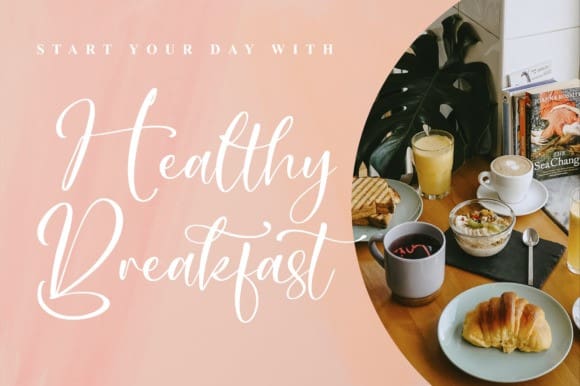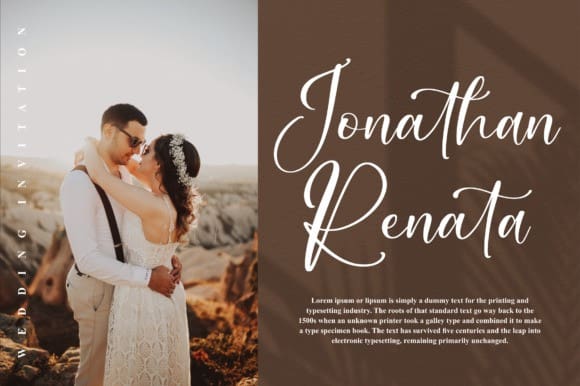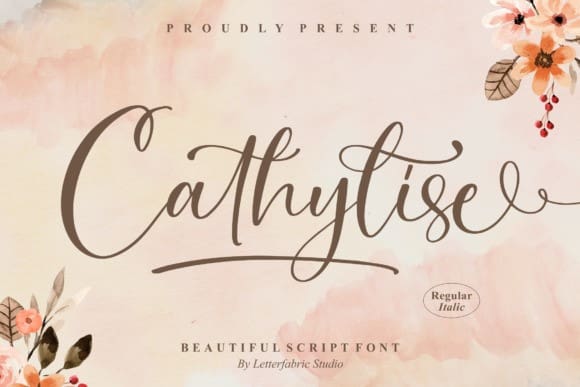
Cathylise Script Font
Cathylise Script Font – Beautiful Script Font, from Letterfabric Studio, is suitable for any projects such as logos, branding projects, homeware designs, product packaging, mugs, quotes, posters, shopping bags, t-shirts, book covers, name cards, invitation cards, greeting cards, label, photography, watermark, special events, and all your other lovely projects that need a beautiful script taste.